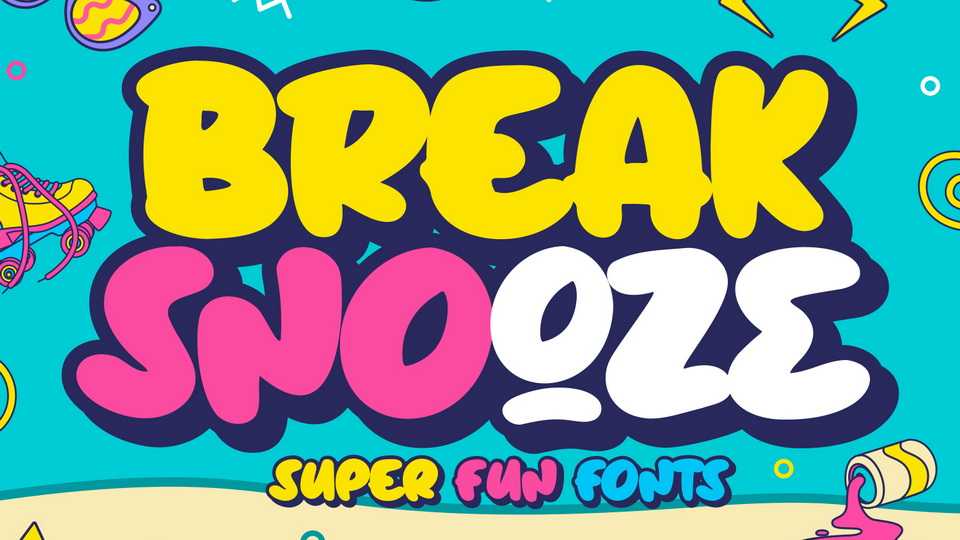
Download Break Snooze font, a bubbly handwritten typeface that have a unique shape, round curves and fun character. Break Snooze embodies playfulness and authenticity and is the perfect choice for any children activity or school project.
Designer: Stefie